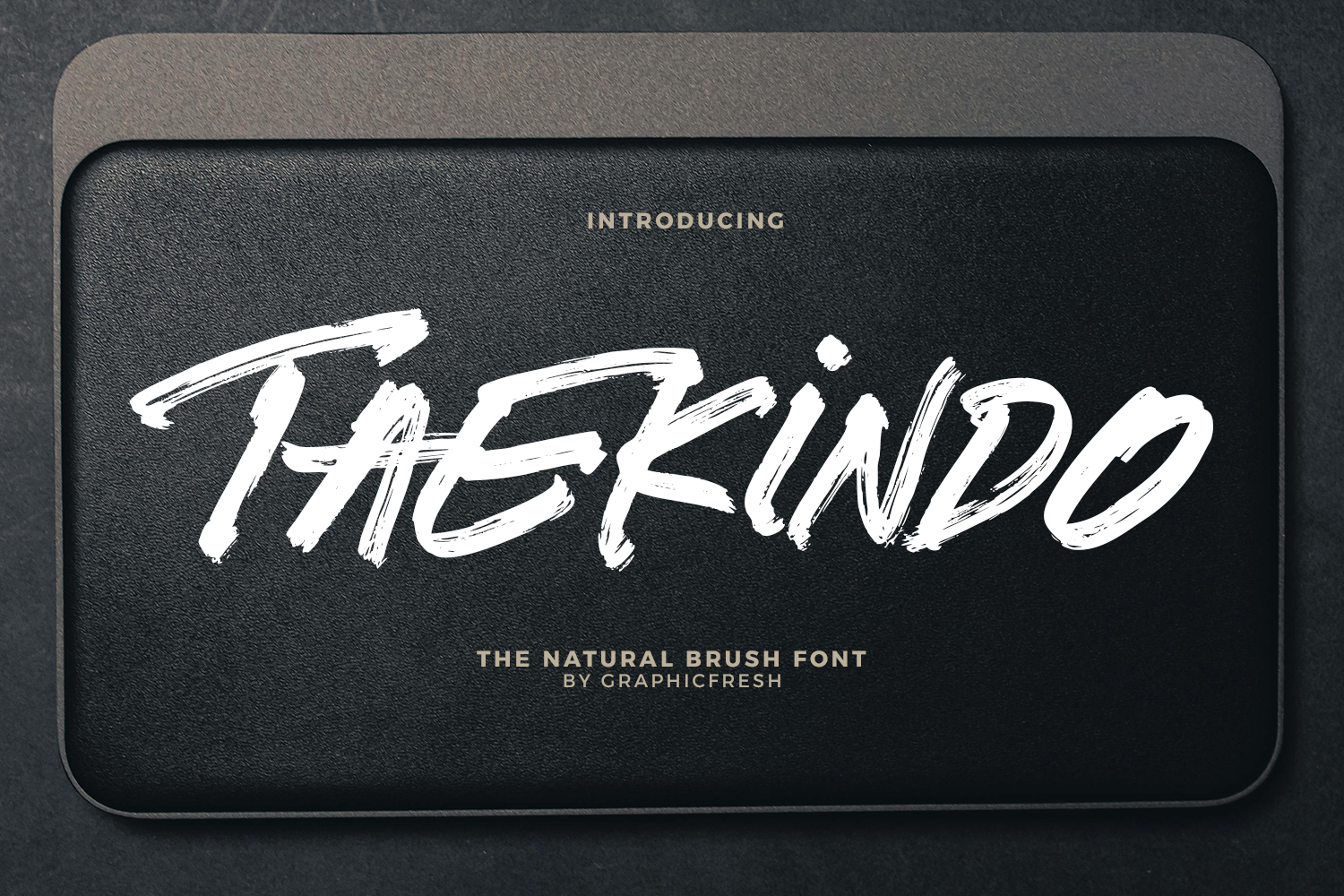
Taekindo - The Natural Brush Font
Taekindo is a natural brush font crafted with organic strokes and authentic hand-painted character. Inspired by the fluid movement of real brush lettering, this font delivers a smooth yet textured appearance that feels lively and expressive. Its balanced structure and natural rhythm create a warm and artistic personality while maintaining clear readability.